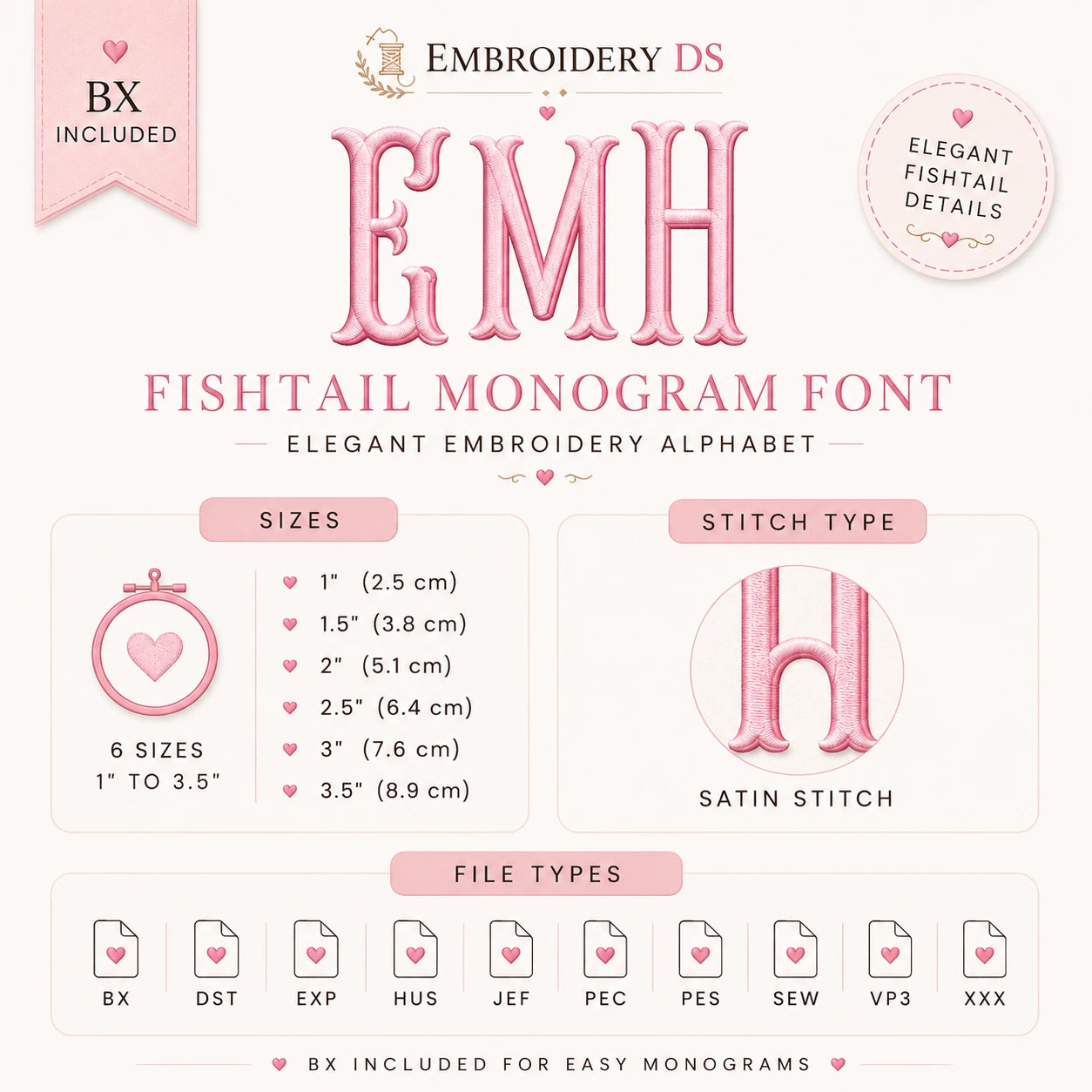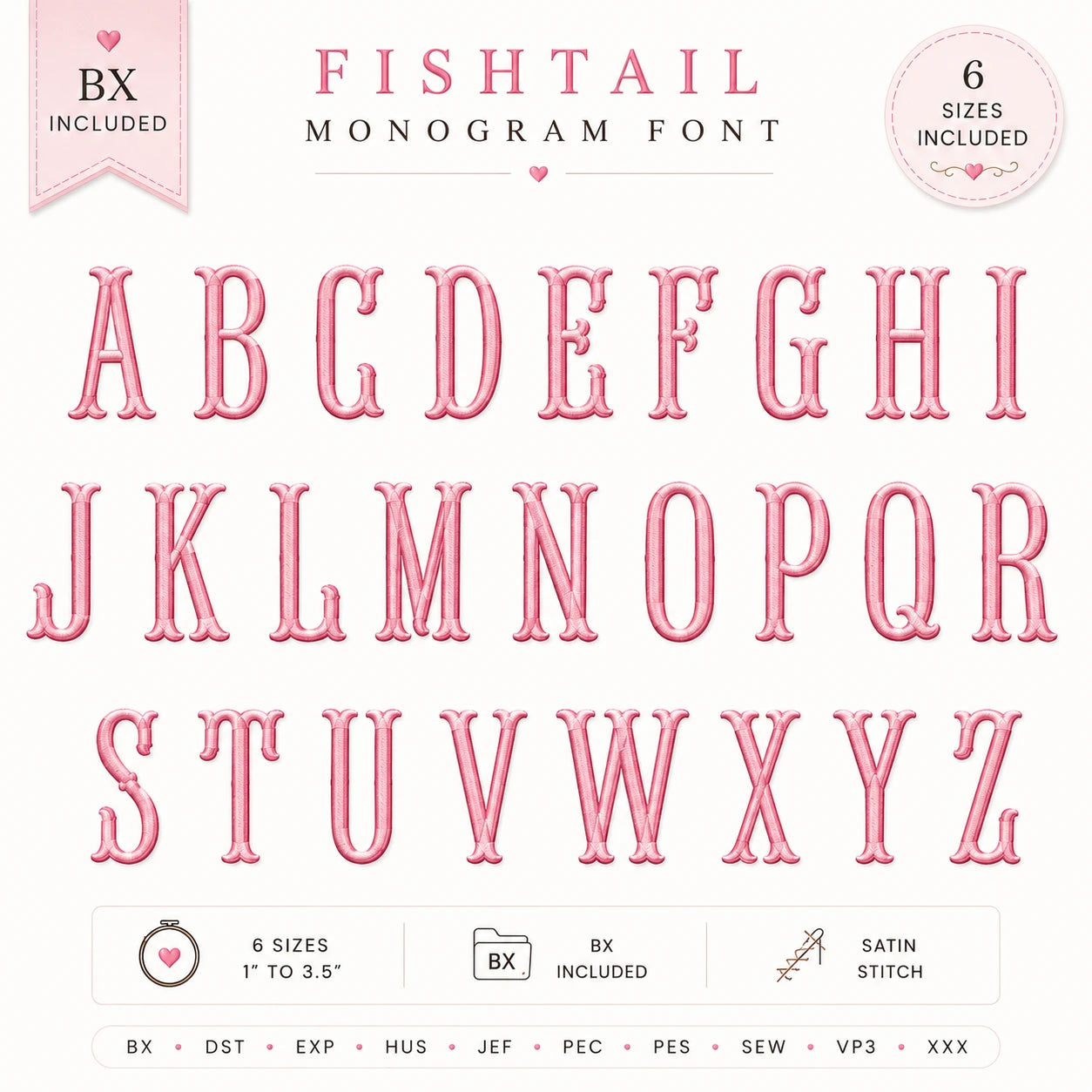
Add timeless elegance to your embroidery projects with this Fishtail Monogram Embroidery Font. Featuring beautifully digitized satin stitch lettering with a classic fishtail style, this alphabet is perfect for creating personalized gifts, clothing, home décor, accessories, and custom products for your small business.
Designed for smooth stitching and professional results, this font is easy to use and compatible with most major embroidery machines.
✔ Complete Uppercase Alphabet (A–Z)
✔ Complete Lowercase Alphabet (a–z)
✔ Numbers (0–9)
All sizes are professionally digitized using Satin Stitch for clean, crisp embroidery.
Each character is supplied as an individual embroidery file, allowing you to easily create names, initials, monograms, and custom wording.
✔ Smooth satin stitching